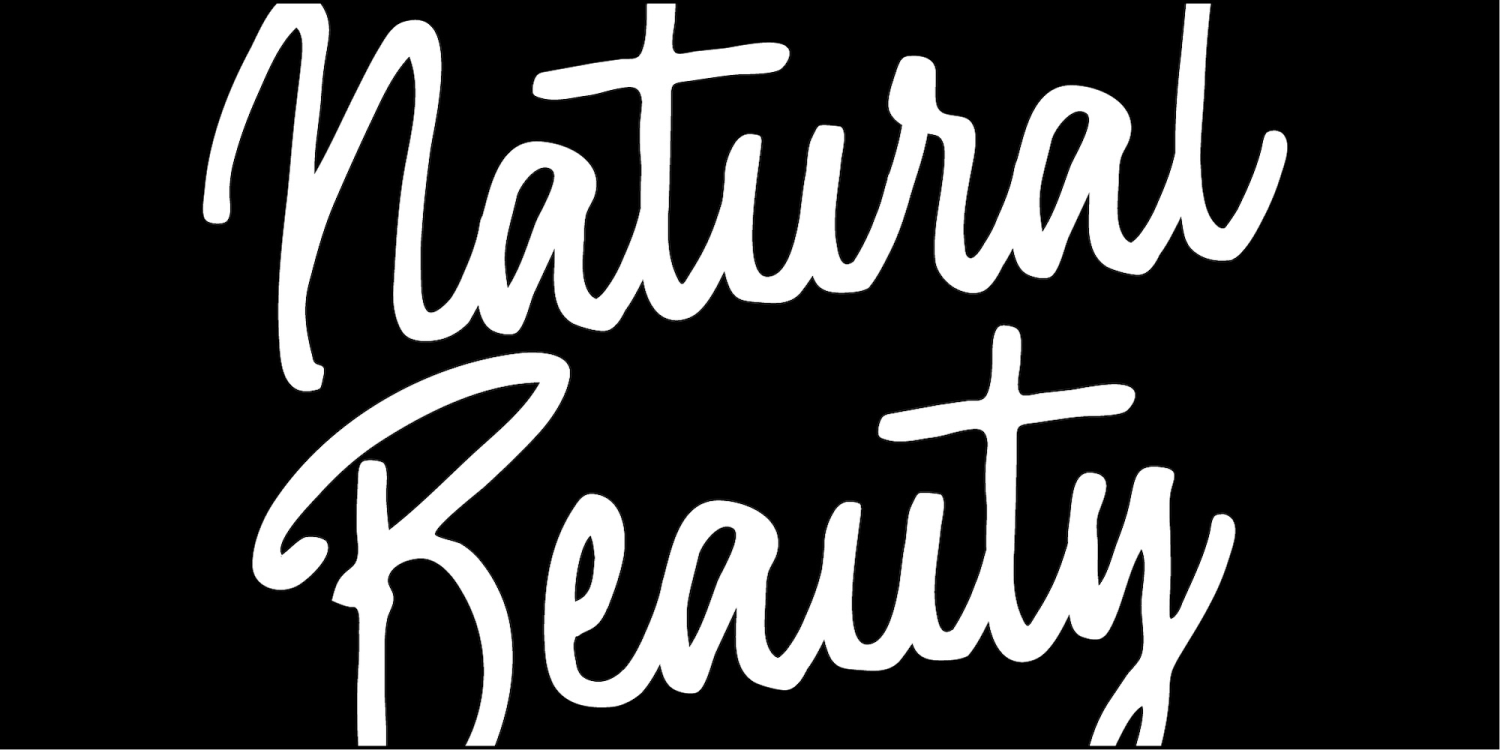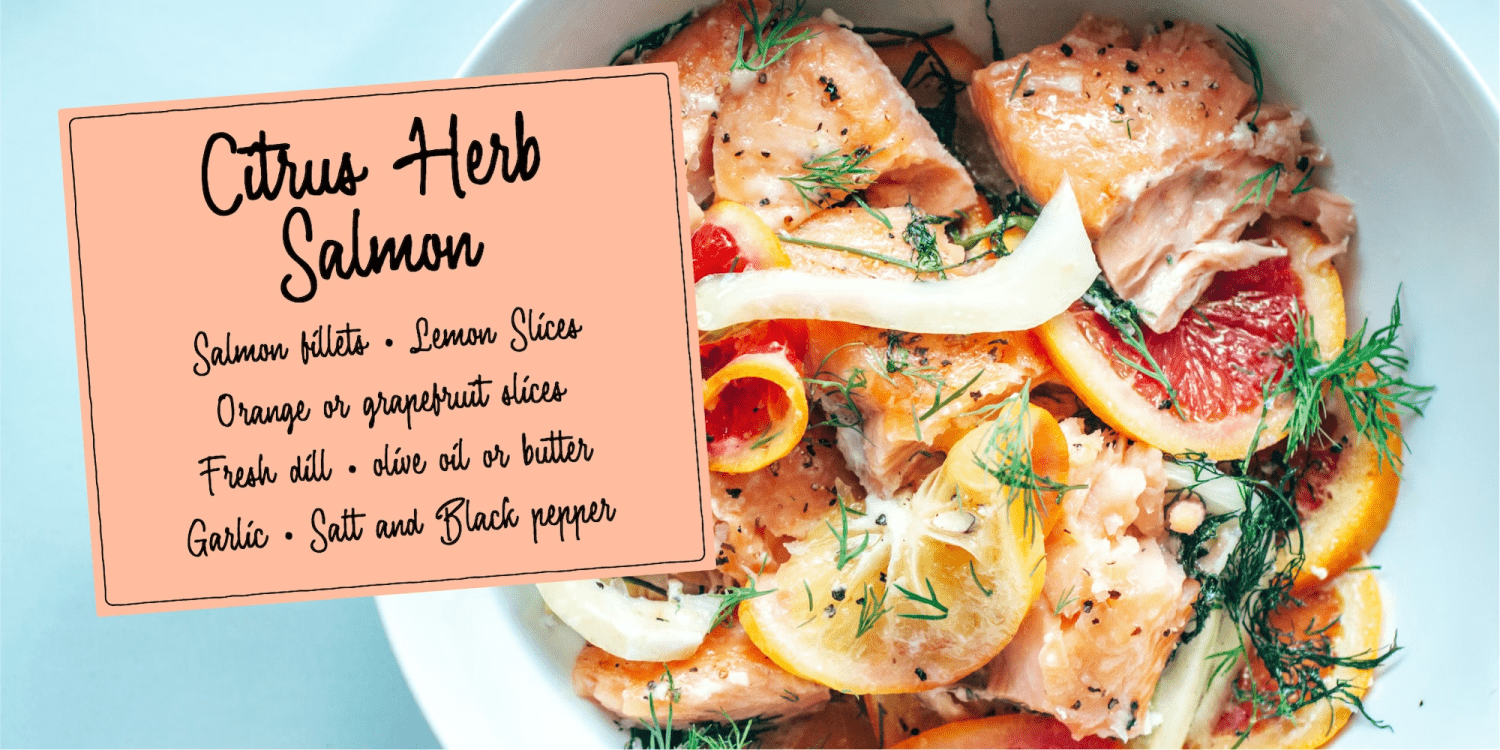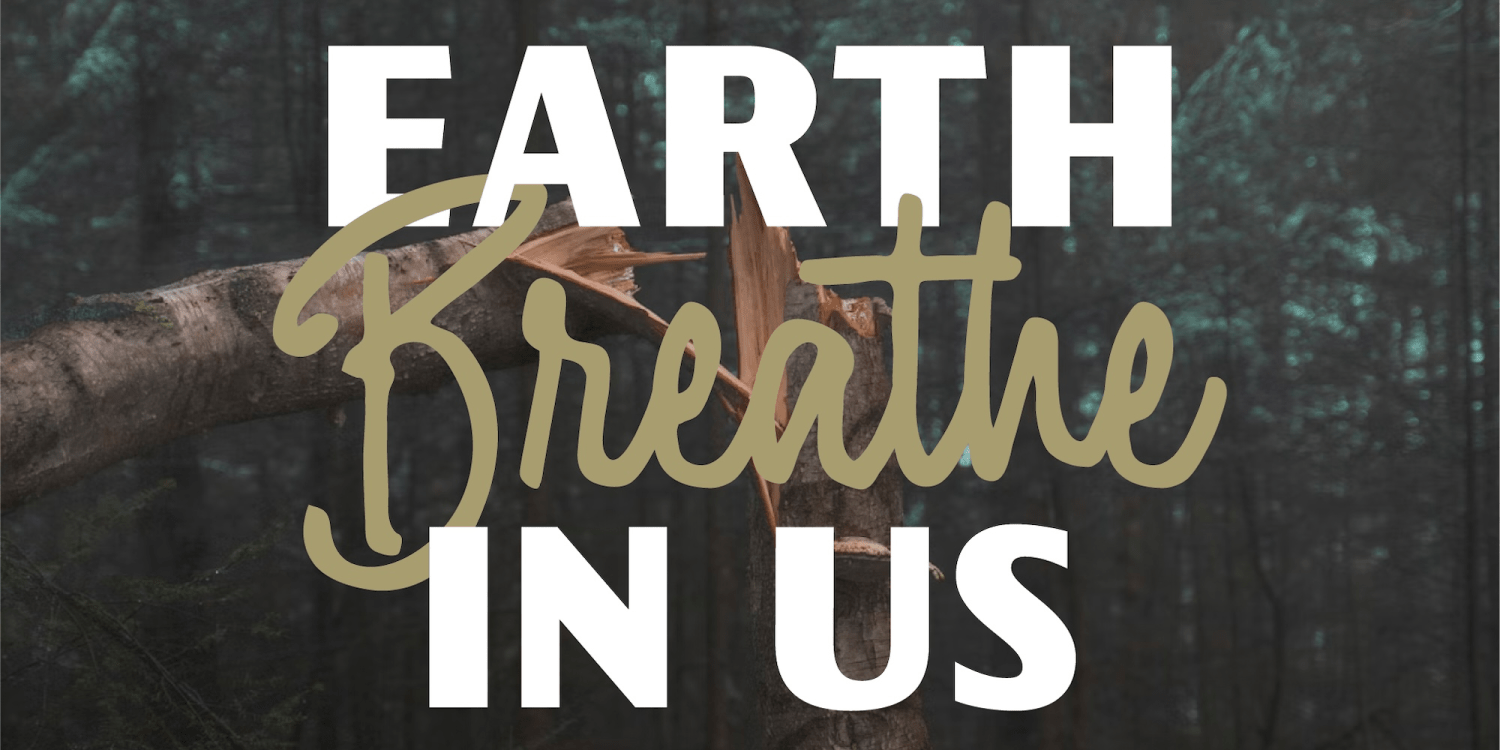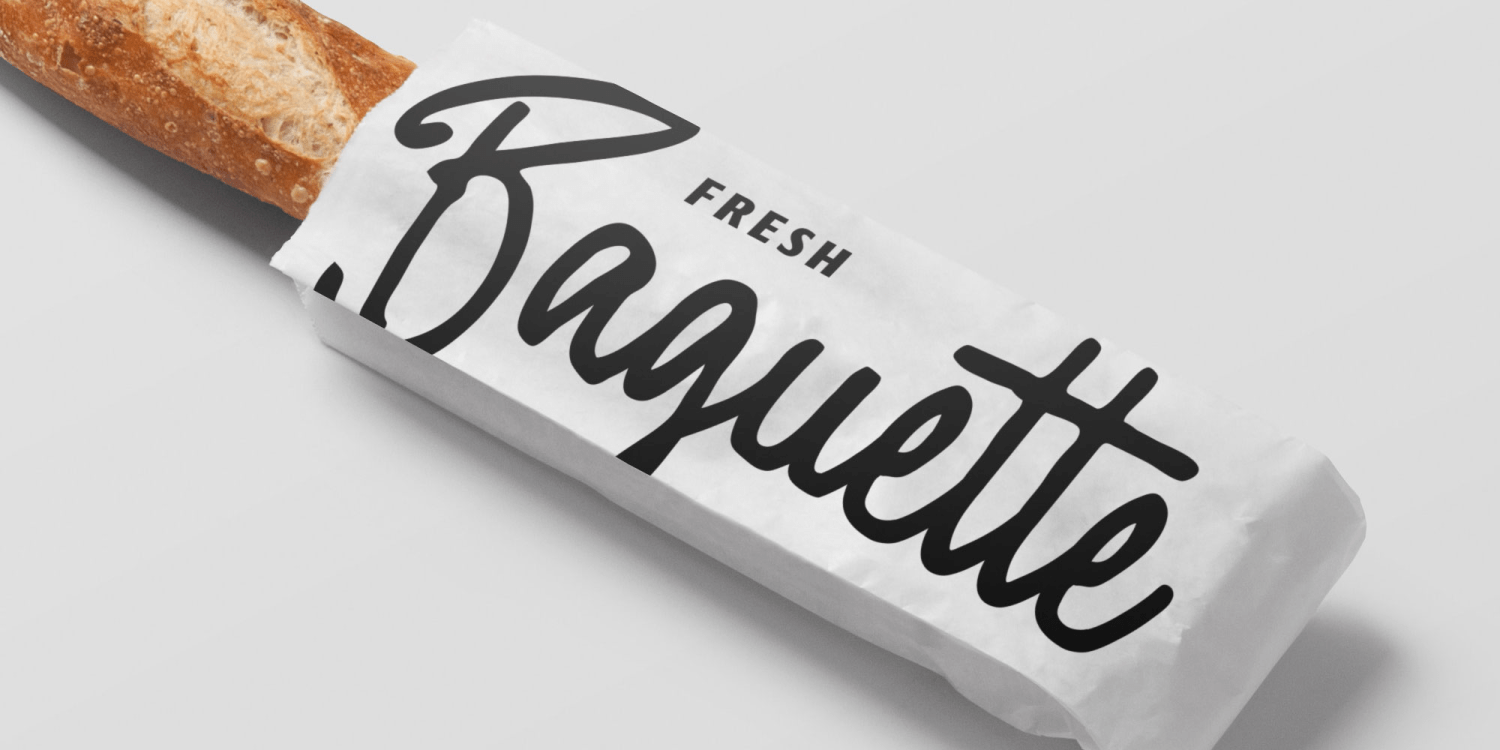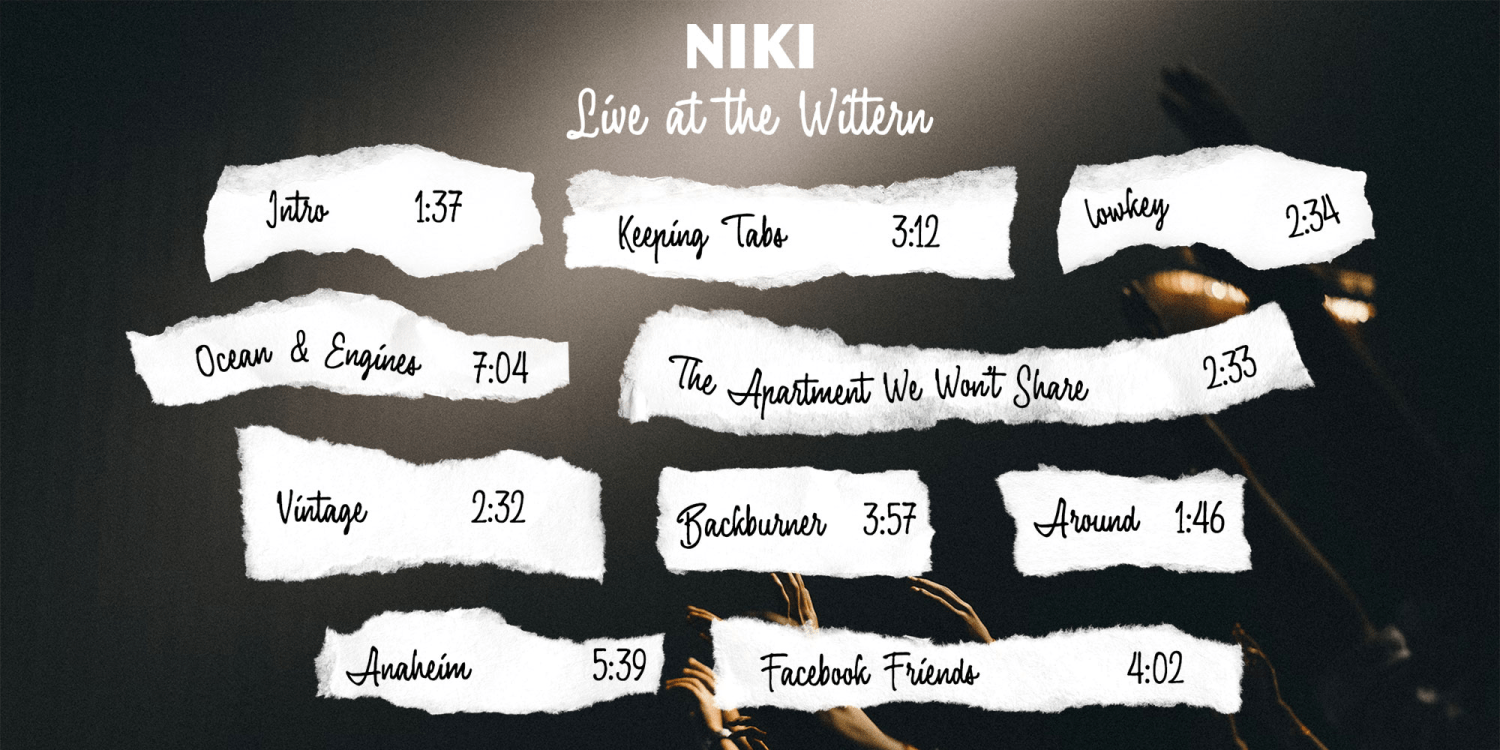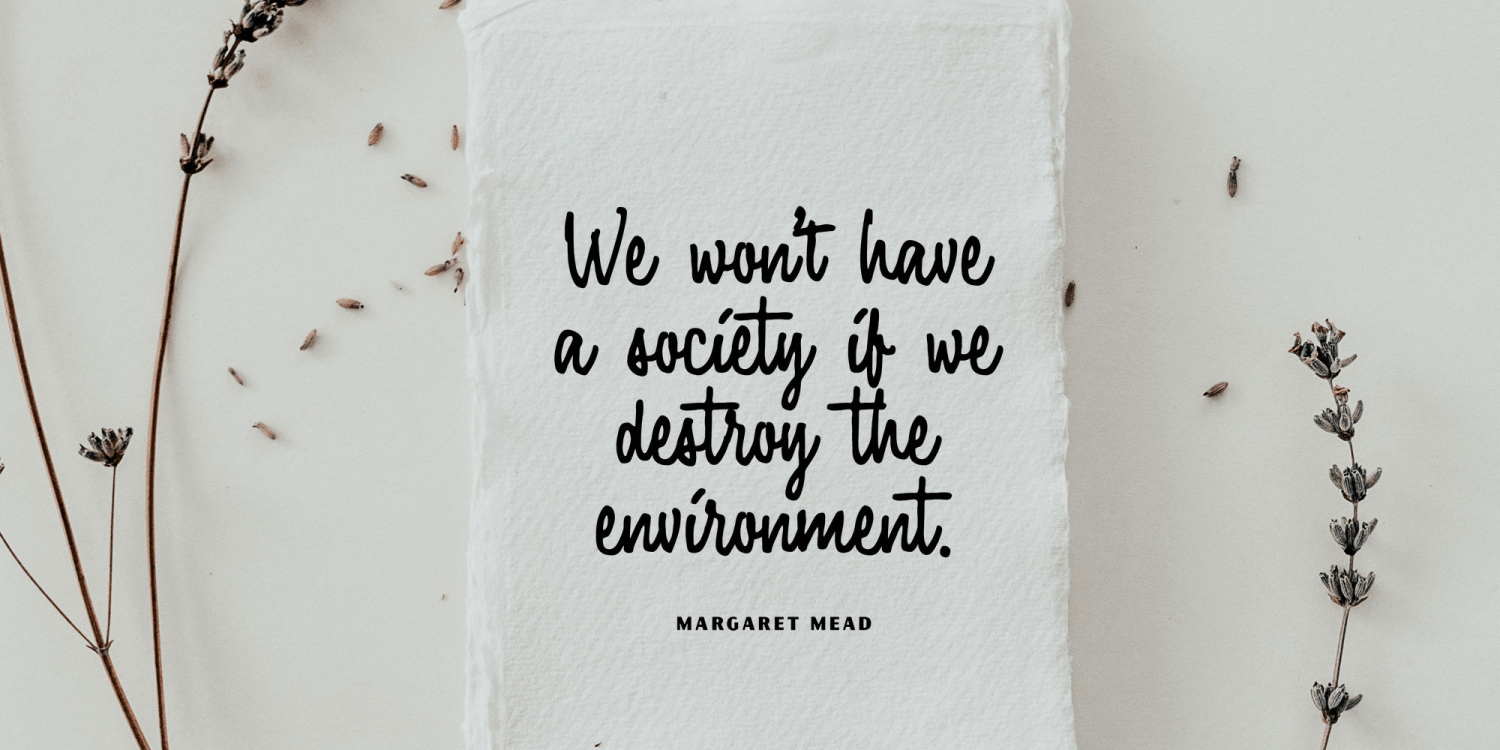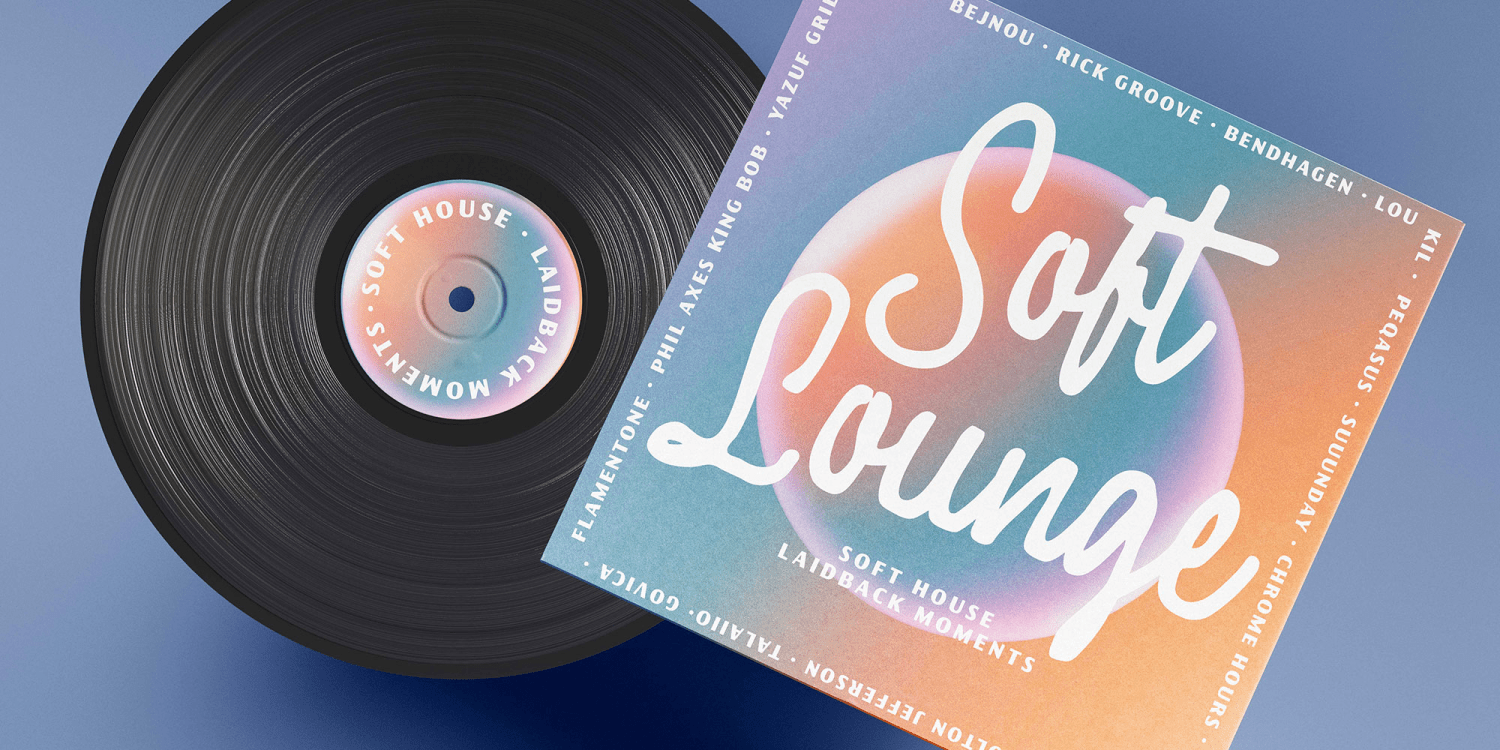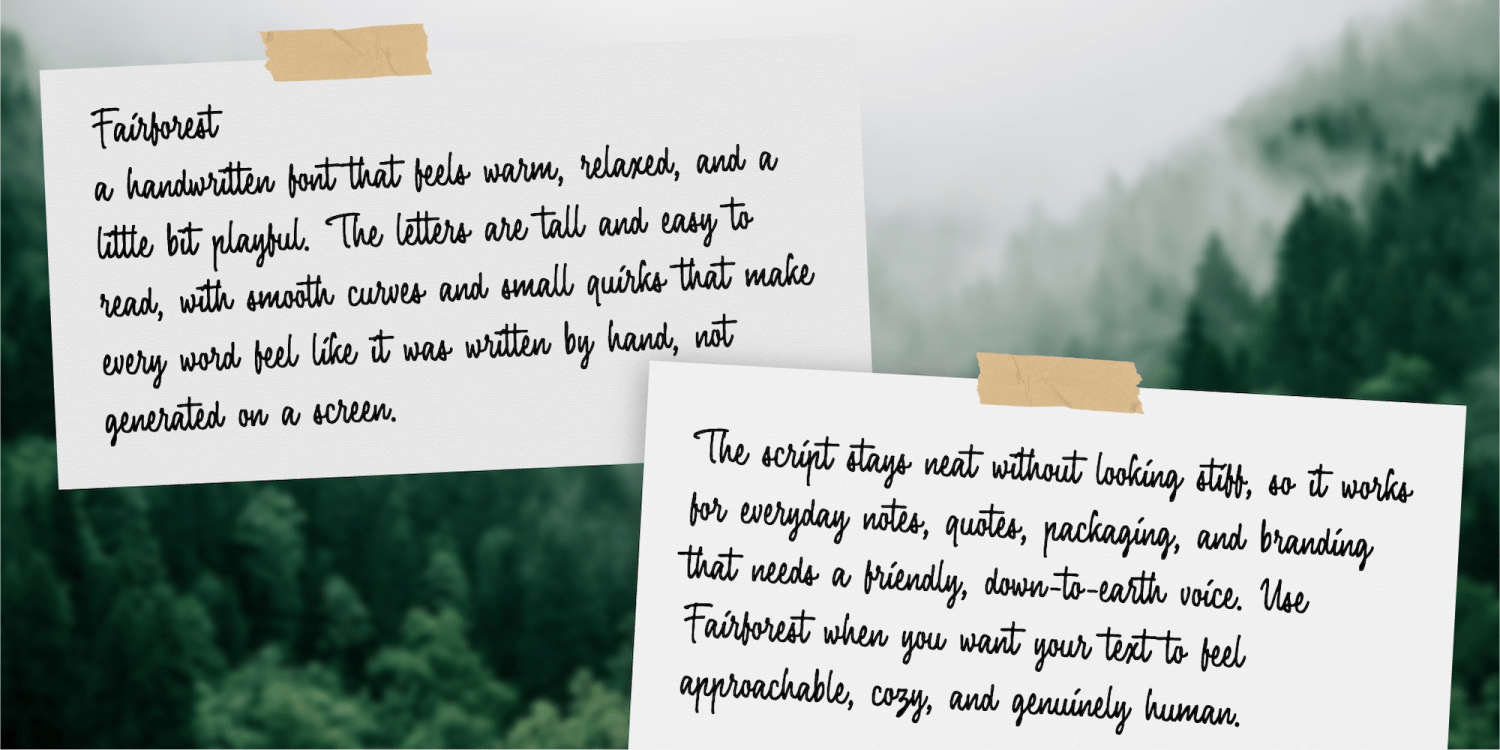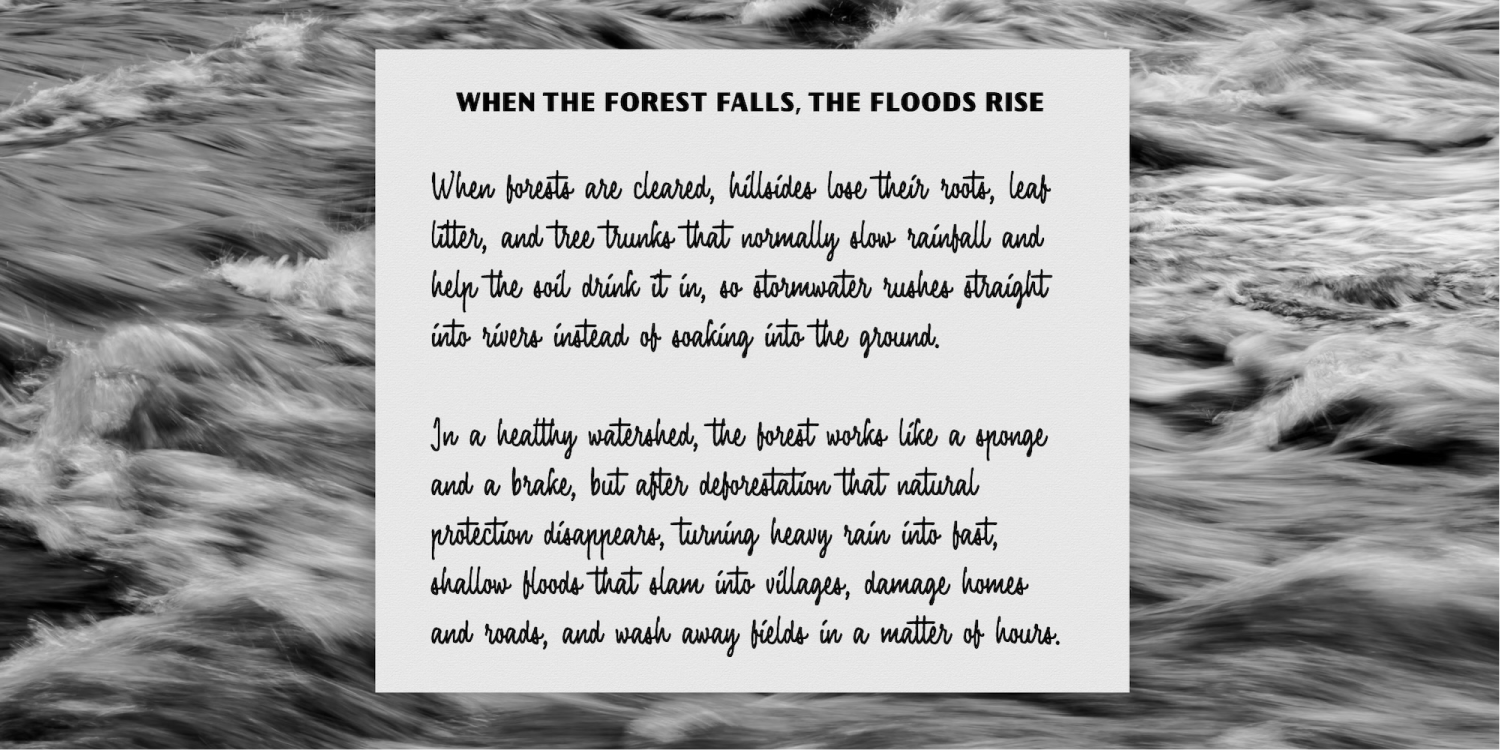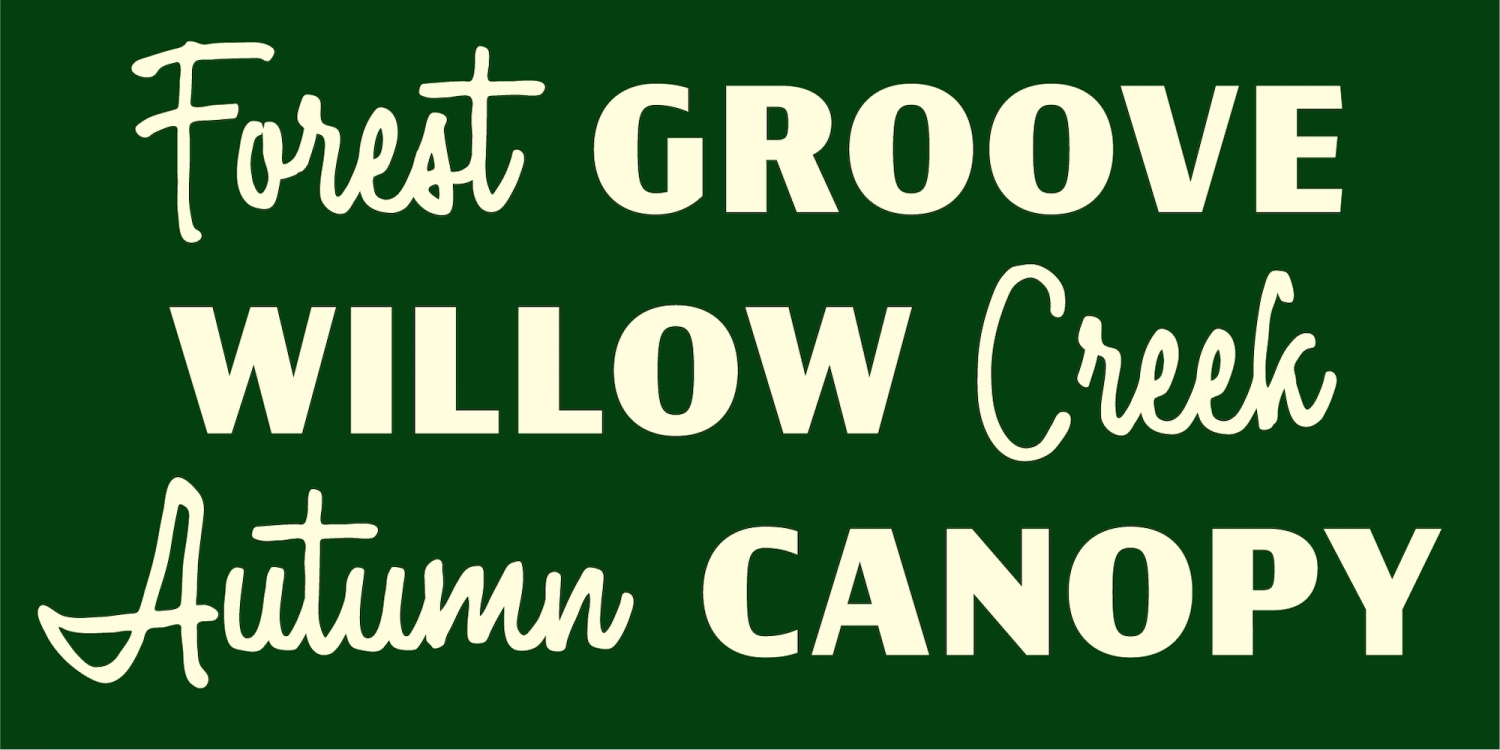
Fairforest
Fairforest is a handwritten font that feels warm, relaxed, and a little bit playful. The letters are tall and easy to read, with smooth curves and small quirks that make every word feel like it was written by hand, not generated on a screen.
The script stays neat without looking stiff, so it works for everyday notes, quotes, packaging, and branding that needs a friendly, down‑to‑earth voice. Use Fairforest when you want your text to feel approachable, cozy, and genuinely human.
To keep everything consistent, Fairforest also comes with a clean sans serif companion. This all‑caps font is simple and sturdy, perfect for titles, taglines, and small details. It includes numbers, punctuation, and multilingual support, so you can build complete layouts using just this duo.